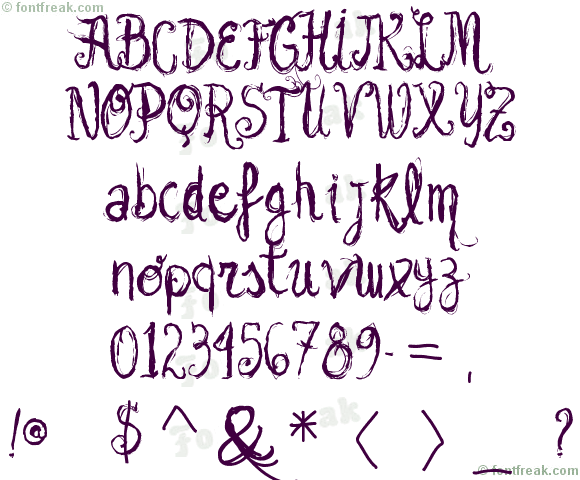
Vtks Garota Bonita
Vtks Garota Bonita, designed by Douglas Vitkauskas, is a captivating decorative typeface that exudes an artistic flair. This font falls into the script category, showcasing a playful yet elegant design that draws attention with its unique characteristics. The strokes feature a varied weight, offering a delightful contrast that enhances its visual appeal. The flowing lines and whimsical curves are complemented by intentional irregularities, giving the font a hand-drawn quality that feels both personal and inviting. The spacing is thoughtfully considered, allowing for legibility without compromising the font's artistic essence.
This typeface is particularly well-suited for a variety of creative applications. It shines in wedding invitations, where its romantic and charming style can set the perfect tone for the occasion. Additionally, Vtks Garota Bonita is ideal for movie posters that aim to capture attention and convey a sense of whimsy or adventure. Restaurant menus can also benefit from this font, as its unique character can add an inviting touch to the dining experience. Furthermore, this typeface is an excellent choice for branding materials aimed at small businesses looking to convey a friendly and approachable image.
What truly sets Vtks Garota Bonita apart is its ability to blend playfulness with elegance, making it a versatile choice for various creative endeavors. Its artistic flair and charming characteristics ensure that it will leave a lasting impression, whether in print or digital media.